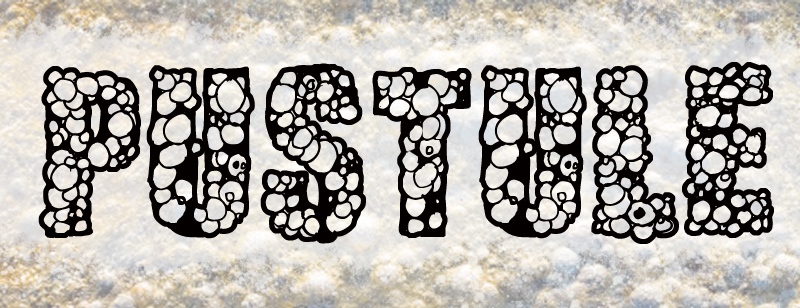
Pustule Bold by Clotier Fontes is a free cartoon display font packed with irregular, thickly outlined pebble-like cells. The uneven outer edges give every form a lively, handmade silhouette.
Slime, microbes, and comic-grotesque imagery make it a natural fit for game graphics, novelty packaging, and event posters. In children's publishing or offbeat magazine design, the clustered shapes can turn a cover title into part of the illustration.
Pustule Bold is a font by ClotierFontes, designed by Steve Cloutier in 2012.